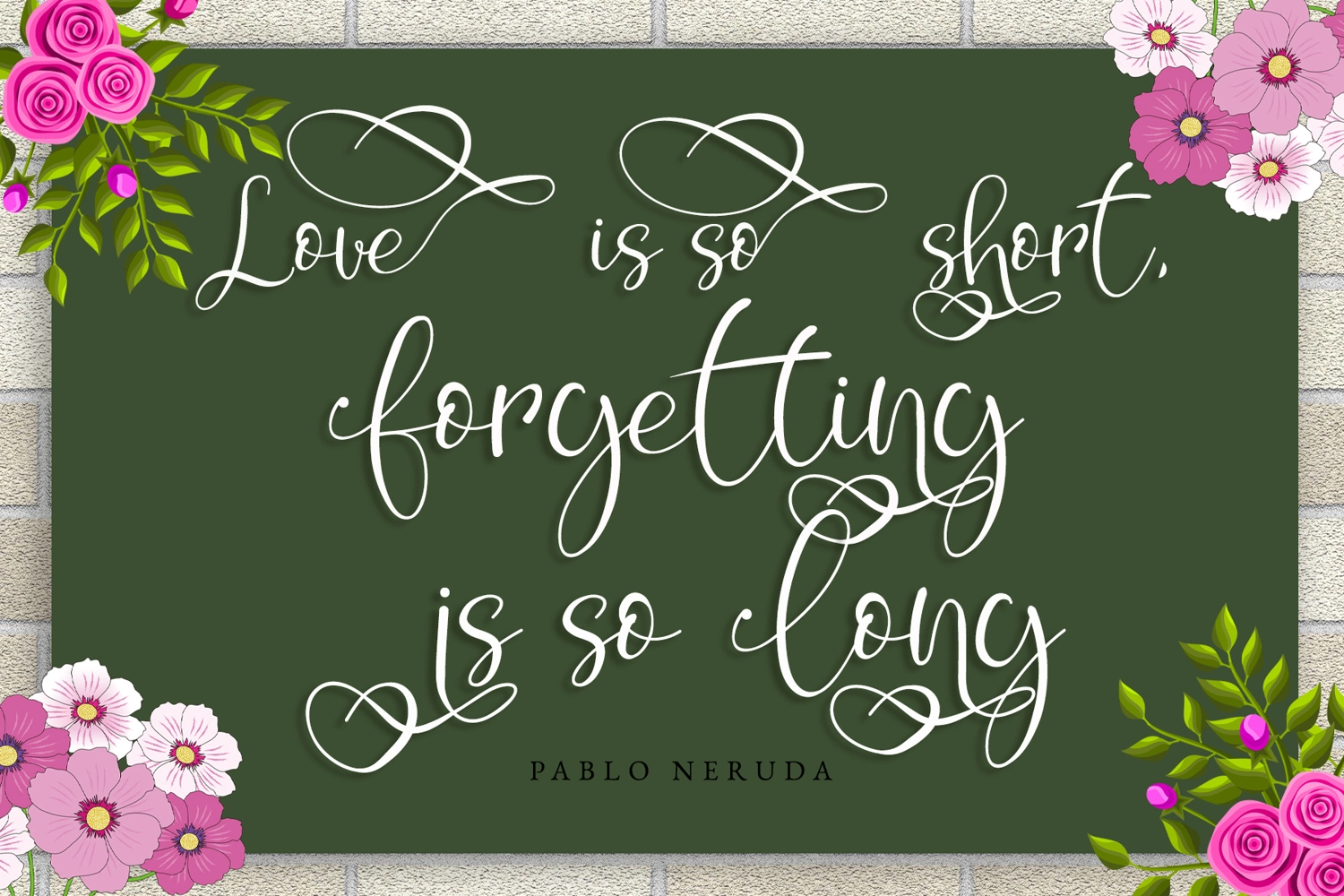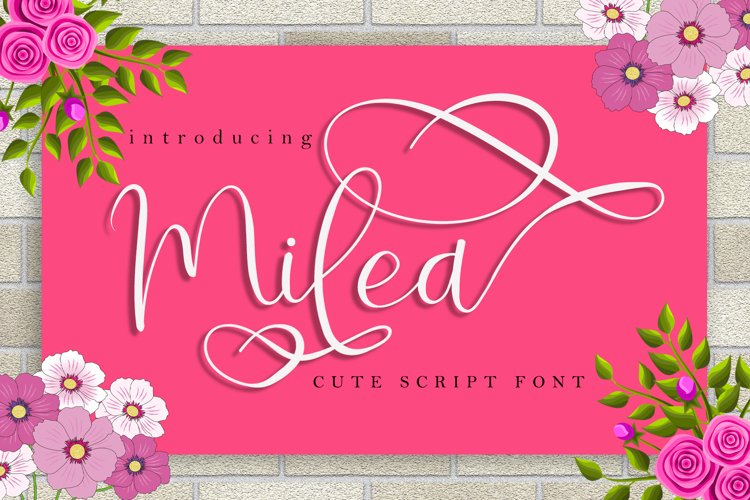
Milea - Calligraphy with Love Accent
Milea is beautiful calligraphy script created with full elegance. It is added love alternates to make this script looks more lovely.